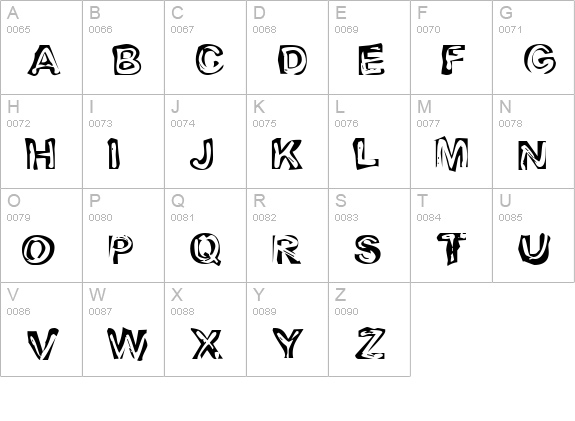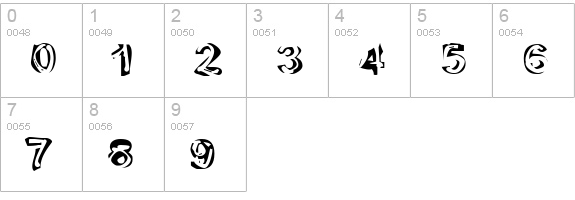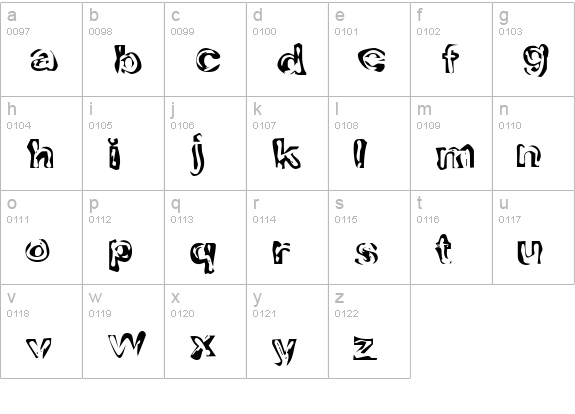
Playdough Font Details
The Playdough font is a whimsical and playful typeface that brings a fun and creative touch to your design projects. Its charming and handcrafted appearance is perfect for adding a touch of personality to any text. The unique, squishy letterforms of Playdough font evoke memories of childhood playtime and are sure to bring a smile to anyone's face. Best of all, Playdough font is freely available to download at FontsMarket.com, making it easily accessible for anyone looking to add a touch of fun to their designs. Whether you're creating invitations, posters, or social media graphics, the Playdough font is a versatile and eye-catching choice that will make your text stand out. Add a playful touch to your designs with the delightful Playdough font today!